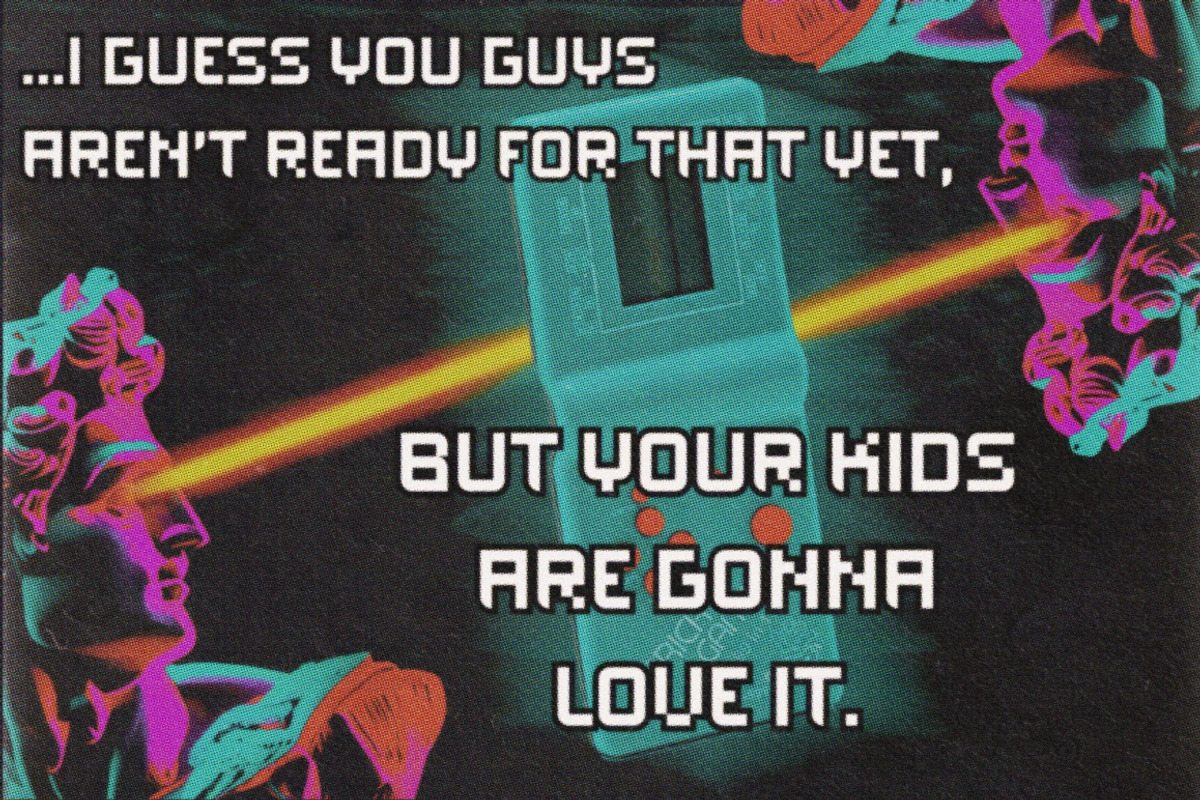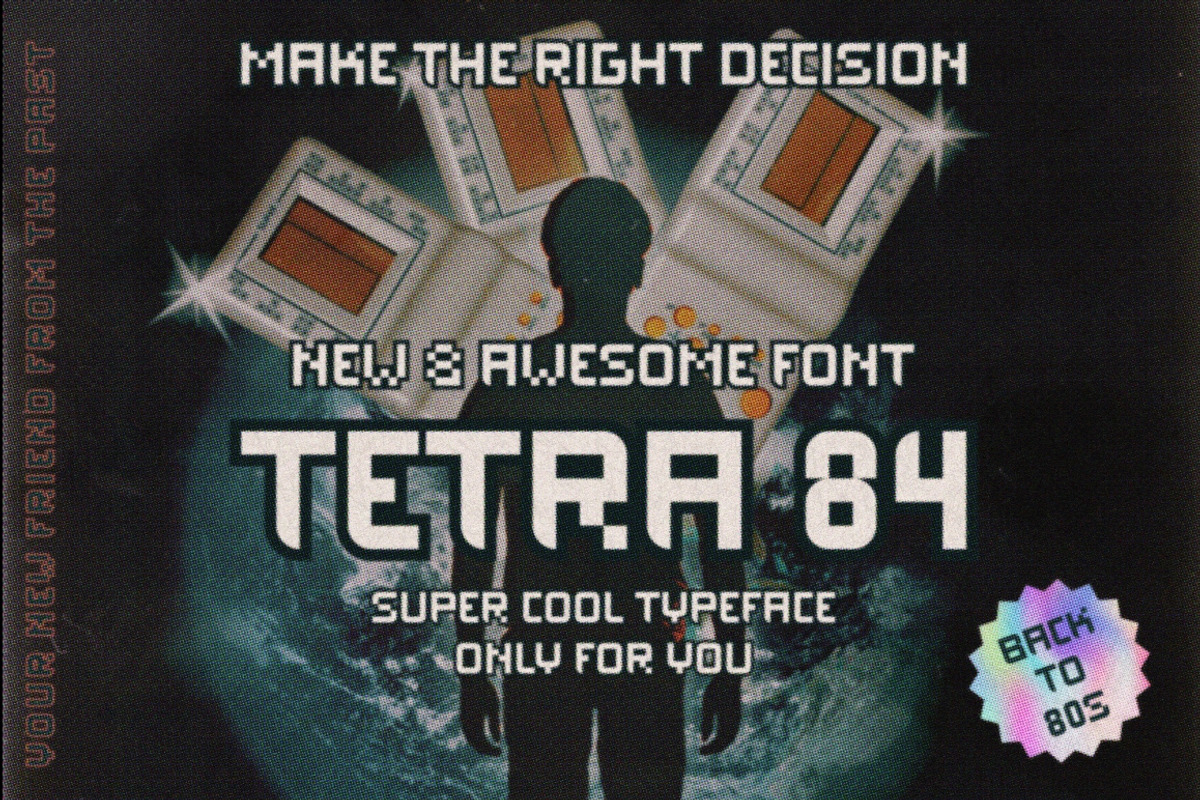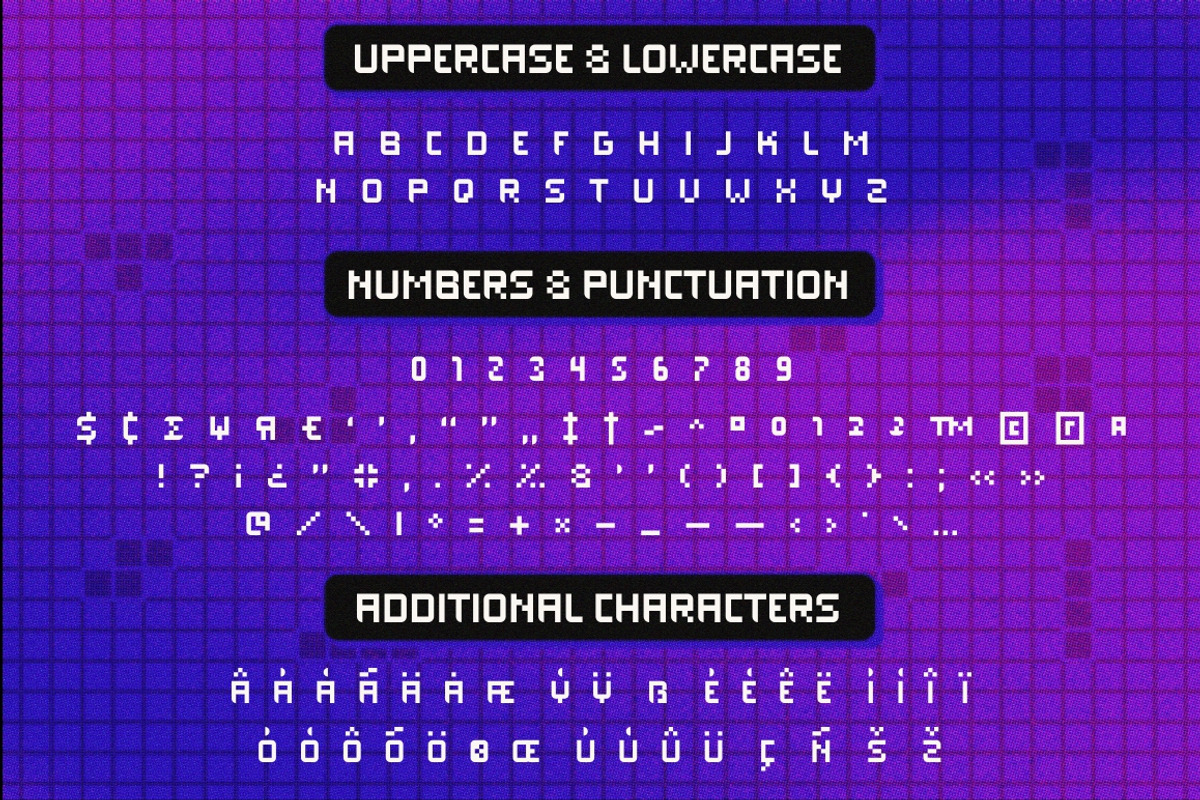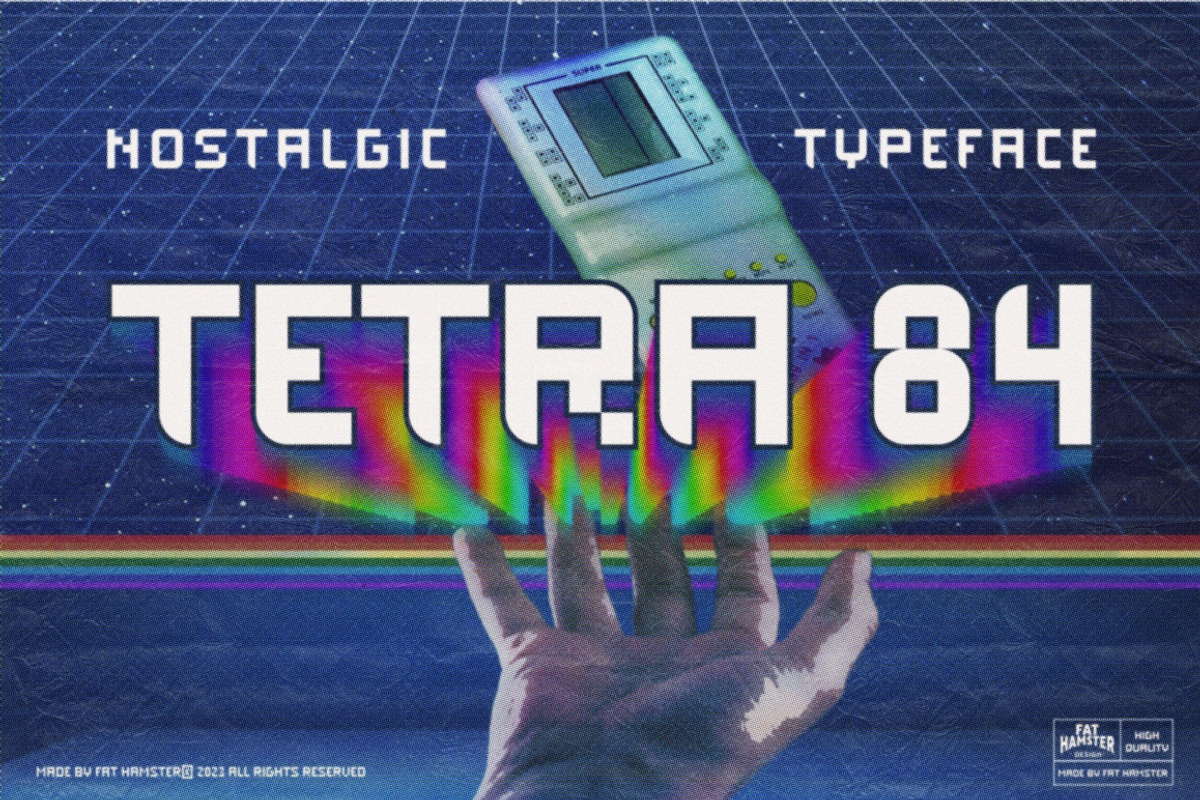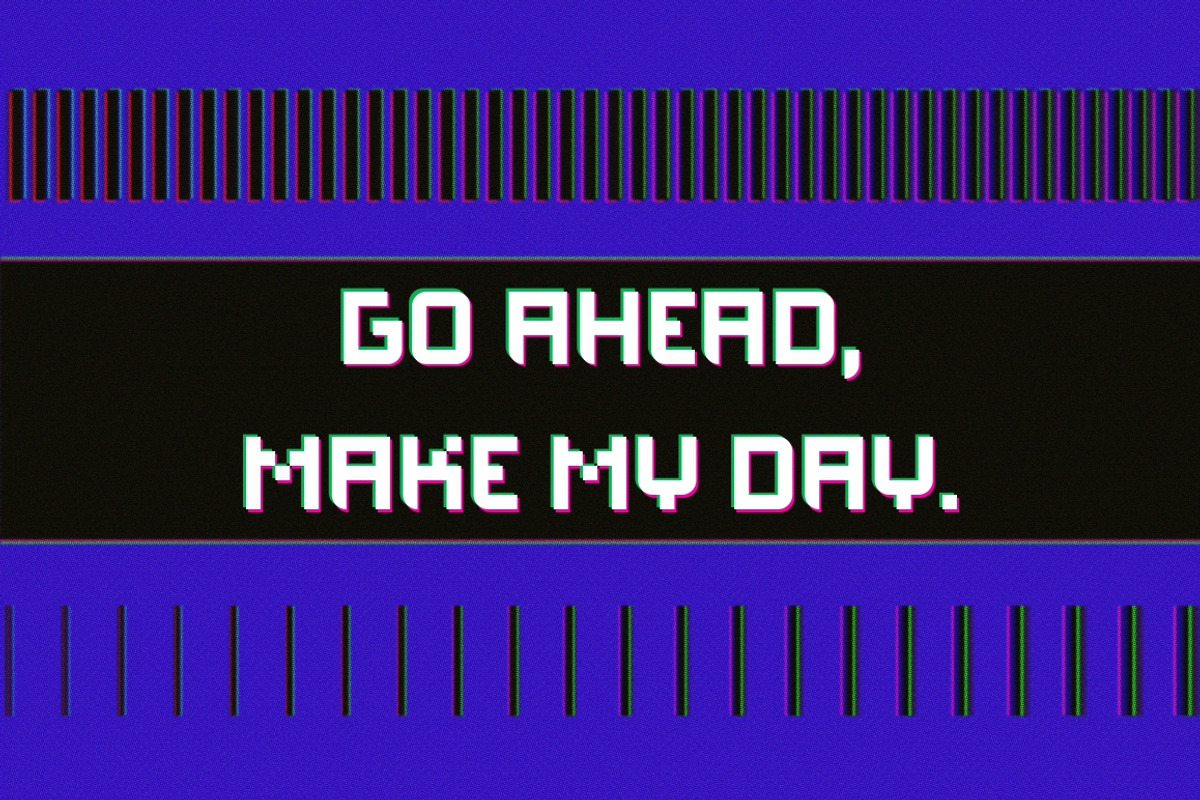
TETRA 84 is a super cool nostalgic retro font in 80s 90s Y2K style
TETRA 84 is a 80s 90s Y2k Tetris inspired typeface. It's retro, bold, playful, fun and...Tetris! Have fun using it!